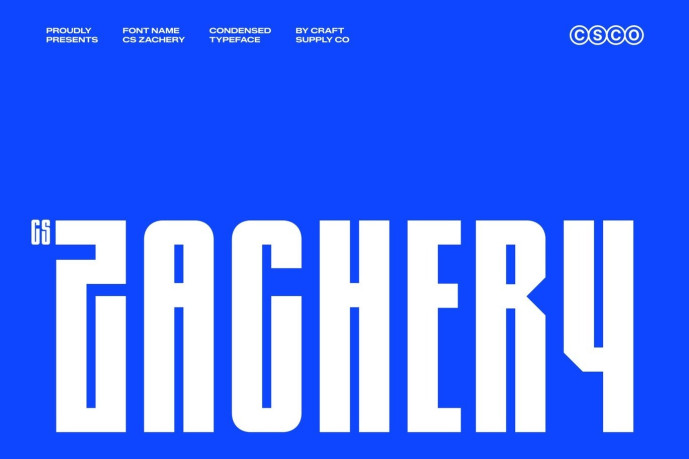
Zachery – Condensed Font
Designer: Craft Supply Co.
CS Zachery – Bold Condensed Display Sans Serif: Where Industrial Precision Meets Futuristic Power Condensed Proportions with High-Impact Presence This is a bold condensed display sans serif built for maximum visual impact. Featuring condensed proportions, bold weight, and a clean geometric construction, it delivers a commanding presence while making efficient use of space. Its narrow counters and compact structure create typography that feels bold, focused, and unmistakably powerful.
Rounded Terminals with Sharp Angular Cuts This font achieves a distinctive visual character that feels both modern and dynamic. This contrast between softened edges and sharp details gives the font an industrial-inspired aesthetic while maintaining excellent readability. The result is a typeface that communicates confidence, precision, and forward-thinking design.
Sporty Energy with Futuristic Appeal This font blends geometric discipline with a sporty, futuristic attitude. Its bold forms and streamlined proportions evoke speed, technology, and urban culture, making it ideal for projects that demand strength and innovation. Every letter is crafted to deliver an energetic and memorable visual statement.
Perfect for Urban Posters, Esports, and High-Impact Typography Perfect for esports identities, automotive branding, posters, editorial headlines, logos, packaging, advertising campaigns, and high-impact typography. Its condensed geometry, industrial styling, and futuristic character make it ideal for projects that communicate power, performance, and modern confidence.